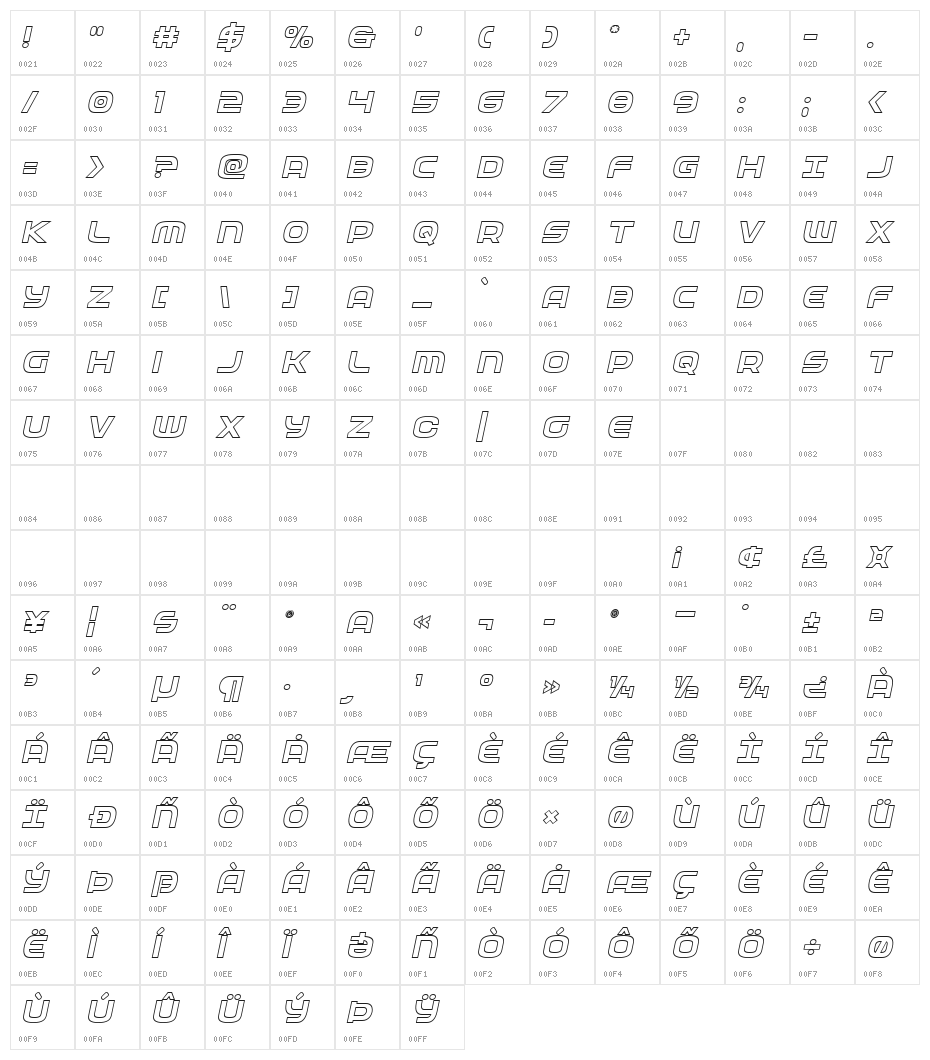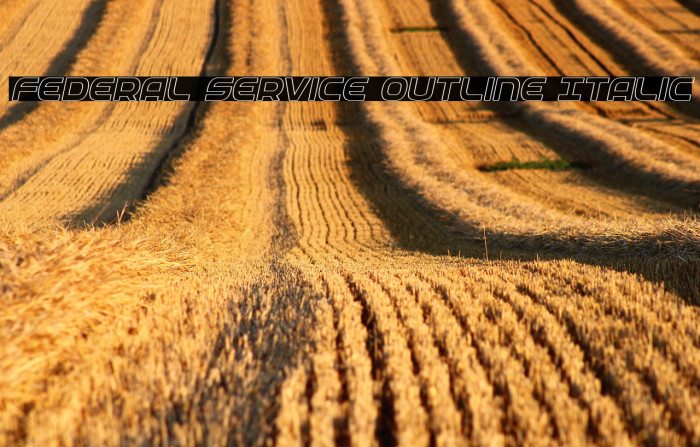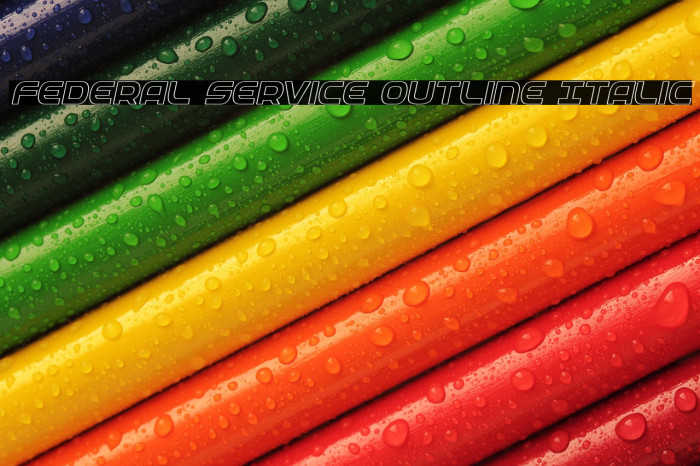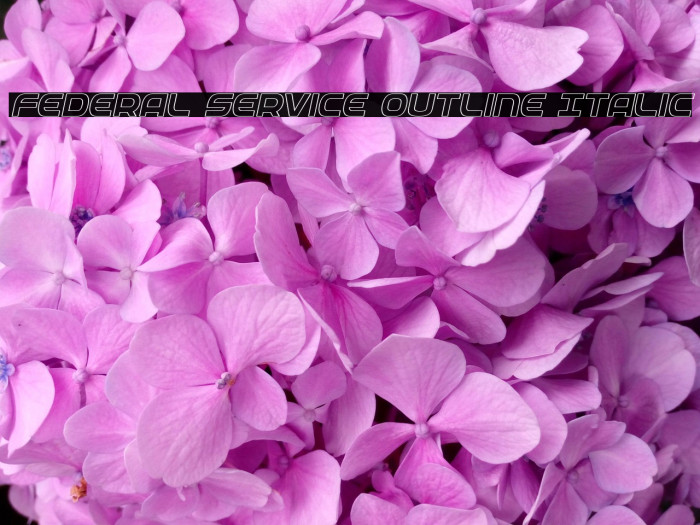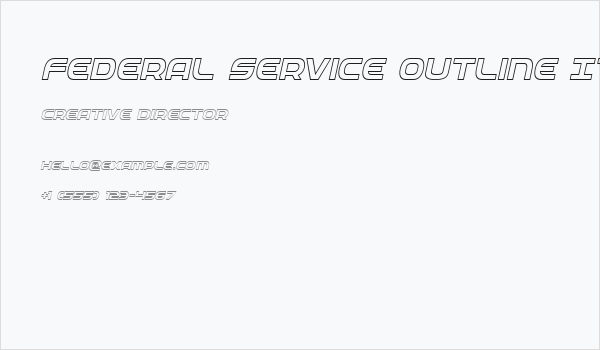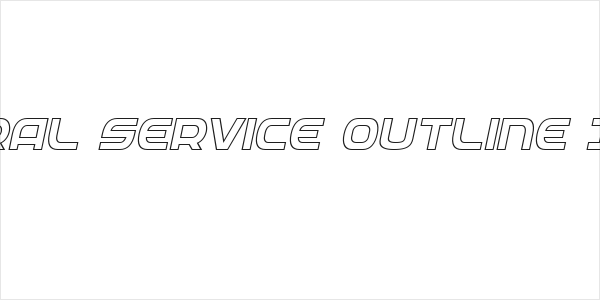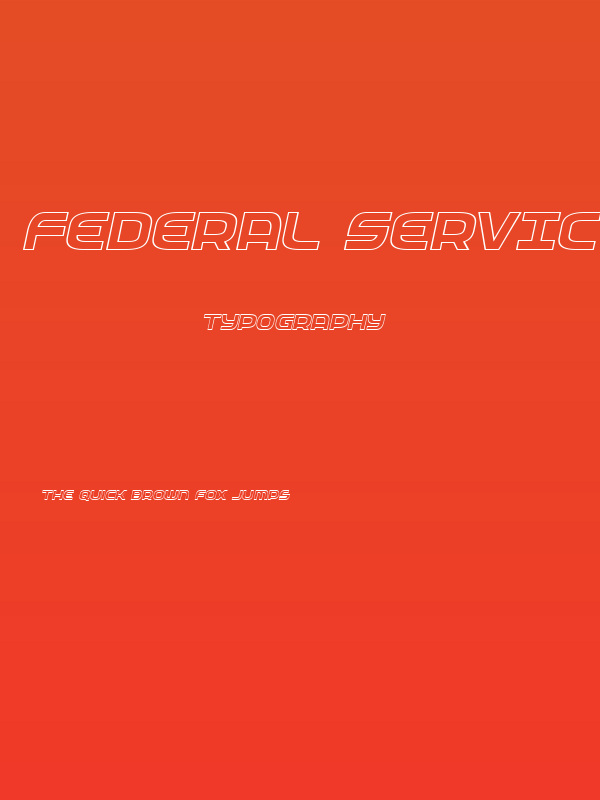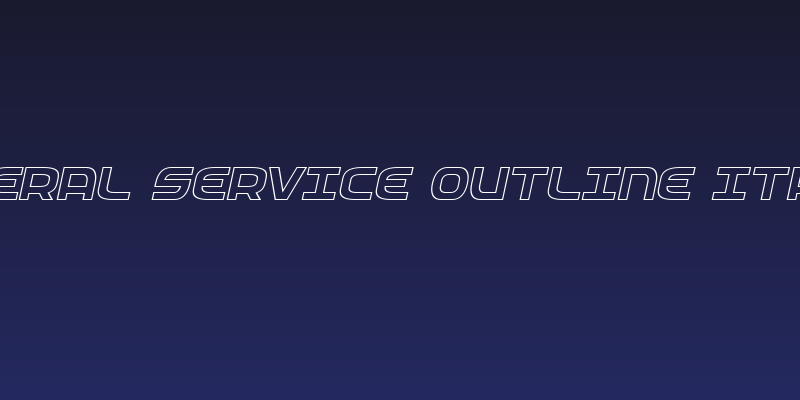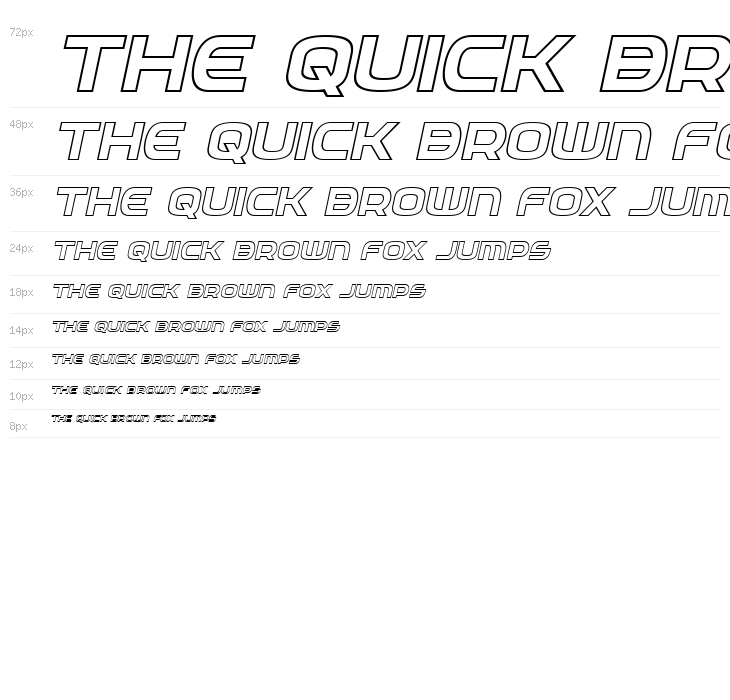
Federal Service Outline Italic Font
Federal Service Outline Italic Description
This font features a modern, outlined style with a distinct italic slant, giving it a dynamic and futuristic appearance. The uppercase and lowercase letters maintain a consistent geometric structure, with clean lines and sharp angles. The numerals and special characters follow the same design principles, ensuring uniformity across all glyphs. The outline effect adds a sense of depth and dimension, making it suitable for eye-catching designs. The font's sleek and contemporary look is ideal for projects that require a bold statement.
| Proposed Projects | Ideal for branding, headlines, posters, and digital media where a modern and striking appearance is desired. |